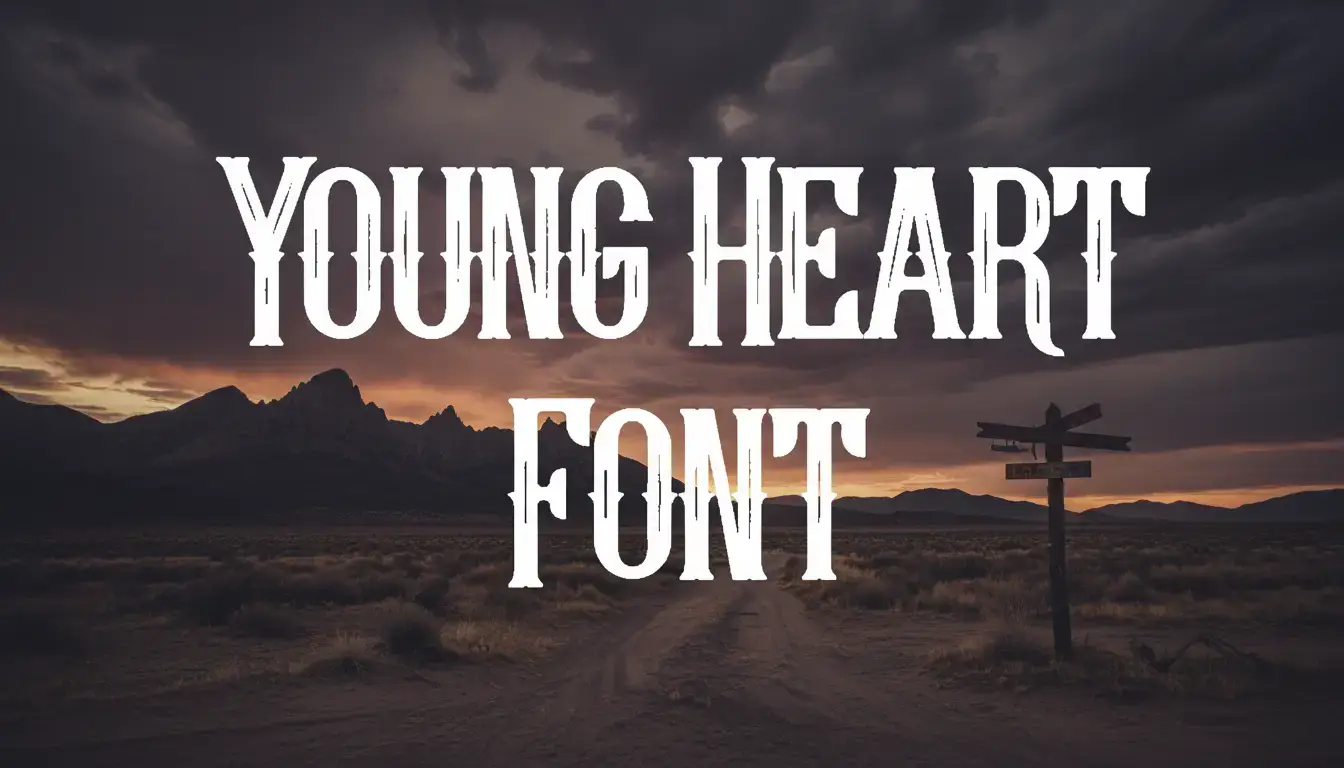
Young Heart Font
Young Heart
Young Heart is a Western font designed by Alit Suarnegara and published by Alit Design. Its letters feel straight out of a cowboy movie, sturdy and full of old-west character. You can download it for free and test it with your own words in the preview above.
What You Can Type With Young Heart
With complete upper and lowercase letters and all ten digits, Young Heart is ready for real wording, not just a single headline. Punctuation is limited, so look at the character map if you need a specific symbol. There are no accented letters like é or ñ, so it's best kept to English text.
Where Young Heart Works Best
Young Heart is a natural fit for rodeo posters, saloon signs and country music flyers. Try it in brown, rust or cream on a paper texture for the full old-west look.
Does Young Heart support accented letters?
No. Young Heart has no accented letters such as é, ñ or ü, so it's best for English text.
What fonts pair well with Young Heart?
A sturdy slab serif or a simple serif works well for the smaller text.